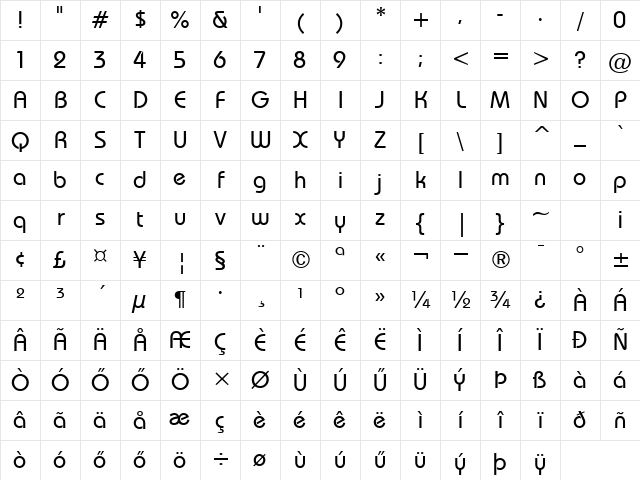
H_Bauhaus BT Medium Free Font
Design Context for H_Bauhaus BT
H_Bauhaus BT is a composed and adaptable typeface that performs quietly and consistently across a wide range of design contexts.